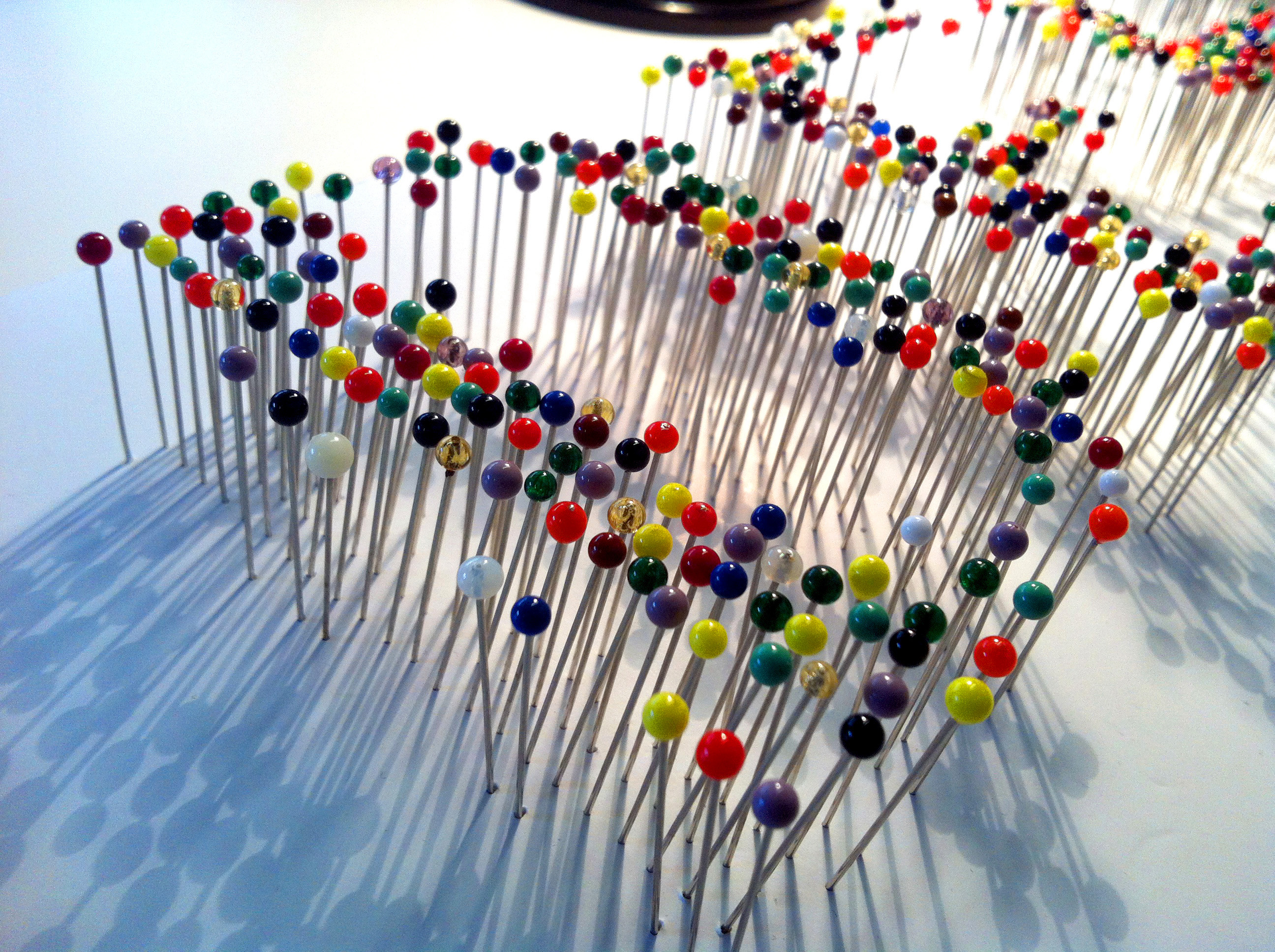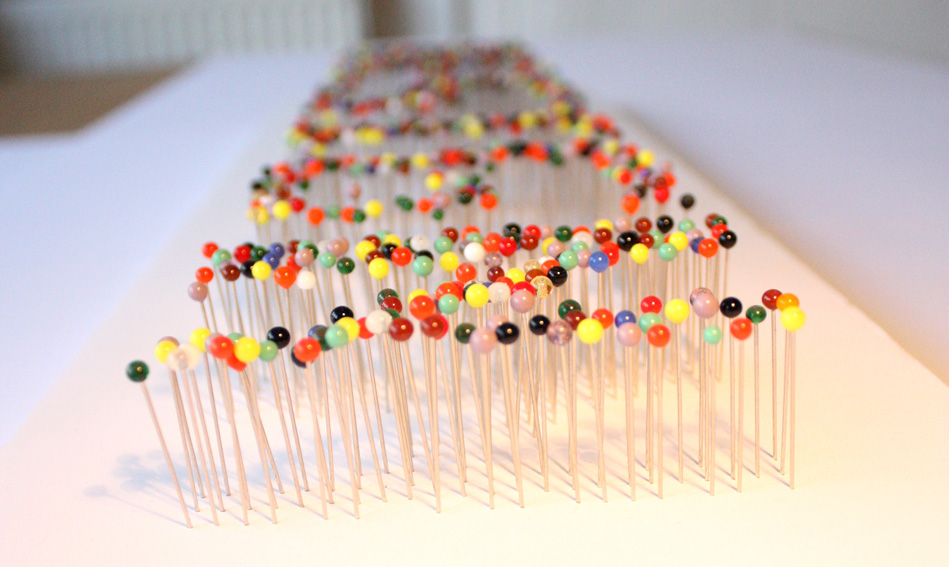
“Some believe that smaller chocolate bars and sweets are the answer, others want a tax on sugary drinks or to encourage children to be more active. One expert, however, has come up with a novel solution to child obesity.
Sarah Hyndman, a graphic designer, says that the right typefaces can “nudge” people into healthier food choices, and this should start in schools…”
The article references the food can experiment that ran at the recent book launch at Tate Modern, and at the Type Tasting event at Shoreditch House for the D&AD Fringe Festival, were you there?